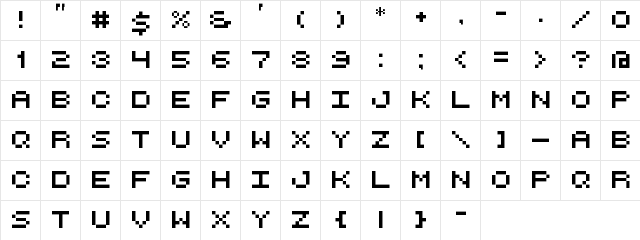
Retro Computer Regular
| Foundry | SzabLencz Pδer |
| Designer | SzabLencz Pδer |
Design Context for Retro Computer Typeface
Retro Computer wears its vintage influences proudly, with letterforms that recall mid-century signage, classic packaging, and nostalgia-driven design.
Font Pairing: Combine Retro Computer with a simple slab or neutral sans — period-accurate companions reinforce the vintage feel without competing for attention.
Pro Tip: Use Retro Computer for headlines and pull quotes rather than body copy — its personality is best appreciated in short, focused bursts.